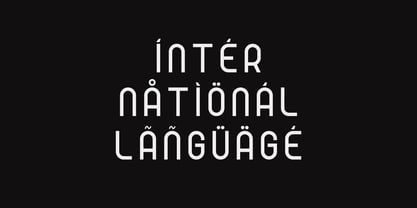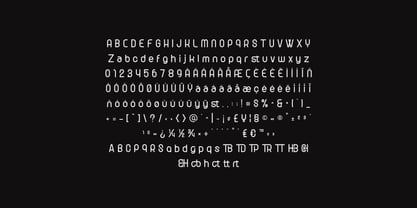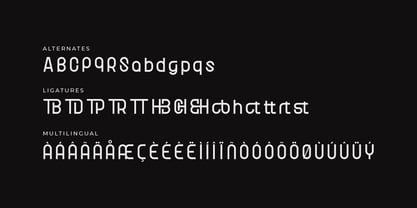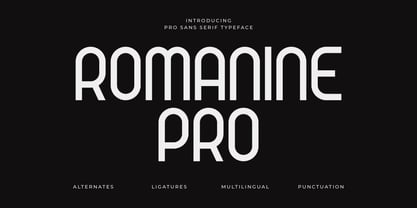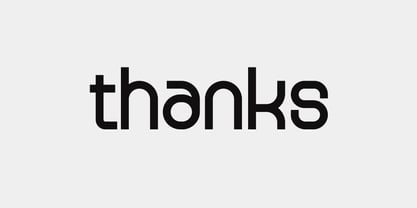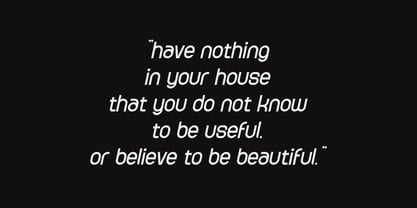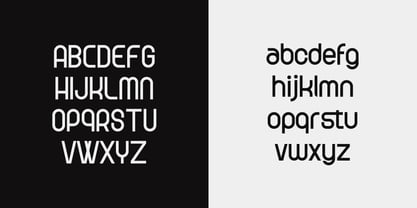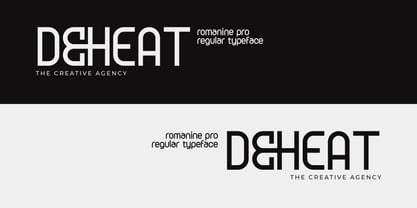
Romanine Pro
by Artiveko
The Romanine Pro Font Family was designed by Iwan Alwan and published by Artiveko. Romanine Pro contains 2 styles and family package options. More about this family
Romanine Pro is a modern condensed sans serif typeface crafted for clarity, impact, and professional versatility. Featuring clean geometry, tall proportions, and a refined narrow structure, Romanine Pro is ideal for headlines, editorial layouts, branding, posters, magazines, web design, and contemporary visual identities. This Pro version offers extensive multilingual support, rich punctuation, numerals, symbols, and smart ligatures, providing designers with complete control over expressive and international typography. Romanine Pro strikes a balance between minimal aesthetics and strong readability, making it perfect for fashion brands, tech startups, creative studios, and modern corporate visuals. More than just a font, Romanine Pro is a precision tool for sharp, confident, and globally-ready design.
Designers: Iwan Alwan
Foundry: Artiveko
About Artiveko
Artiveko is a font design team based in Indonesia, comprised of several talented font designers who commenced their careers in the font design industry in 2020. With a dedicated focus on crafting fonts, the team members bring their collective expertise and passion to every project they undertake. Situated in Indonesia, Artiveko draws inspiration from the vibrant cultural landscape of the region, infusing their creations with unique flavors and aesthetics.The team's font collection encompasses a diverse range of styles, including serif, sans serif, handwritten, and script typefaces. Each typeface is meticulously crafted to meet the demands of modern design while offering versatility and functionality across various applications. Whether it's the classic elegance of serif fonts, the contemporary appeal of sans serif designs, the personal touch of handwritten scripts, or the expressive flourishes of script fonts, Artiveko ensures that every font reflects their dedication to quality and innovation.Artiveko's fonts have garnered recognition and acclaim, with their works being featured on prominent social media platforms like Creative Market. Through these platforms, the team has been able to connect with a global audience of designers and typographers, further amplifying their reach and influence in the industry. Their fonts are celebrated for their impeccable craftsmanship, attention to detail, and ability to elevate design projects with style and sophistication.As Artiveko continues to evolve and expand its font collection, the team remains committed to pushing the boundaries of typography and setting new standards of excellence. With a relentless focus on creativity, innovation, and collaboration, Artiveko strives to inspire and empower designers around the world with their distinctive and versatile font designs.